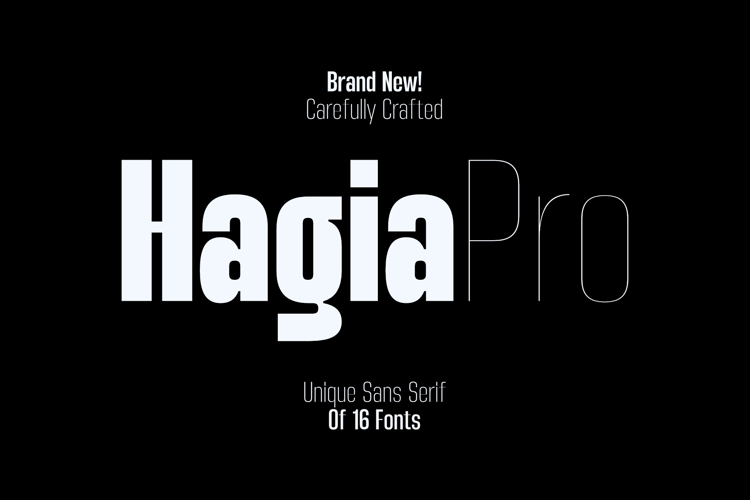
Hagia Pro Extra Bold Font
Extra-Bold Style
About Hagia Pro Extra Bold Font
Hagia Pro’s unique sans serif font family is the perfect tool for creators to create impactful things with a different touch.
Hagia Pro contains several weights to give the user an interesting experience when using it. This unique sans serif font family is very good for branding, logo projects, headings, advertising, packaging, web design, print goods and other creative projects.